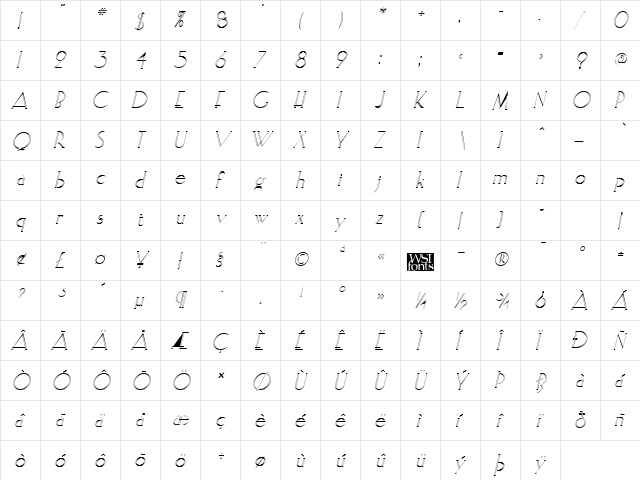
ElisiaOpenface Italic
Design Context for ElisiaOpenface Typeface
ElisiaOpenface offers clean, dependable letterforms without strong stylistic allegiance, making it a practical choice for designers who need flexibility. The dynamic lean of this cut emphasises speed and emphasis in any layout.
Pro Tip: Try ElisiaOpenface for annotation and caption copy alongside an upright companion — the contrast in angle creates a dynamic but ordered typographic system.